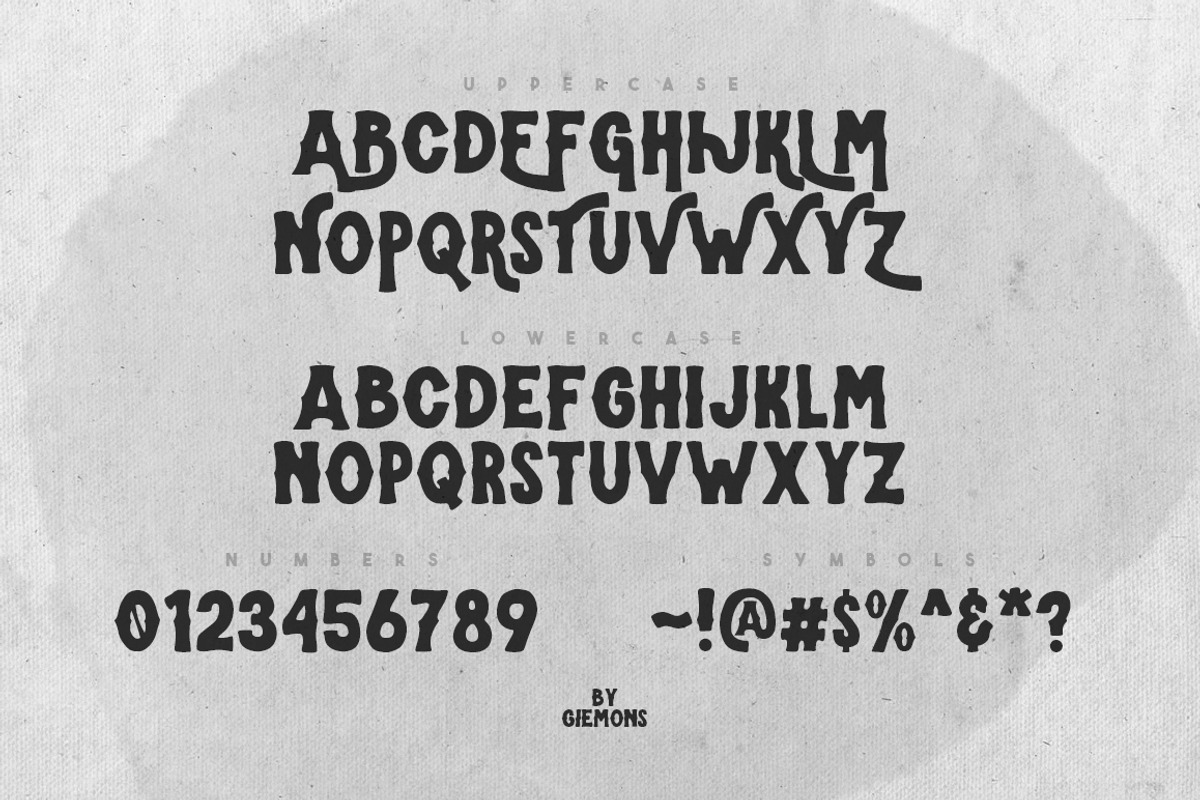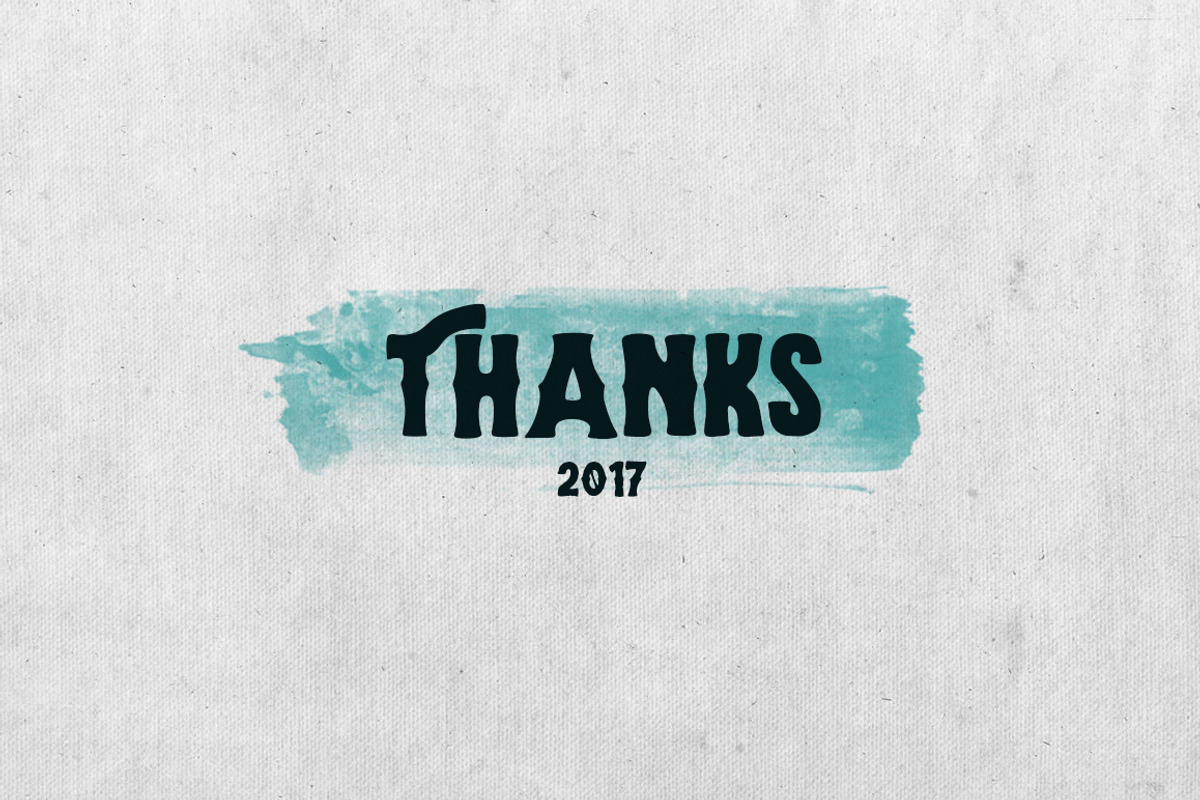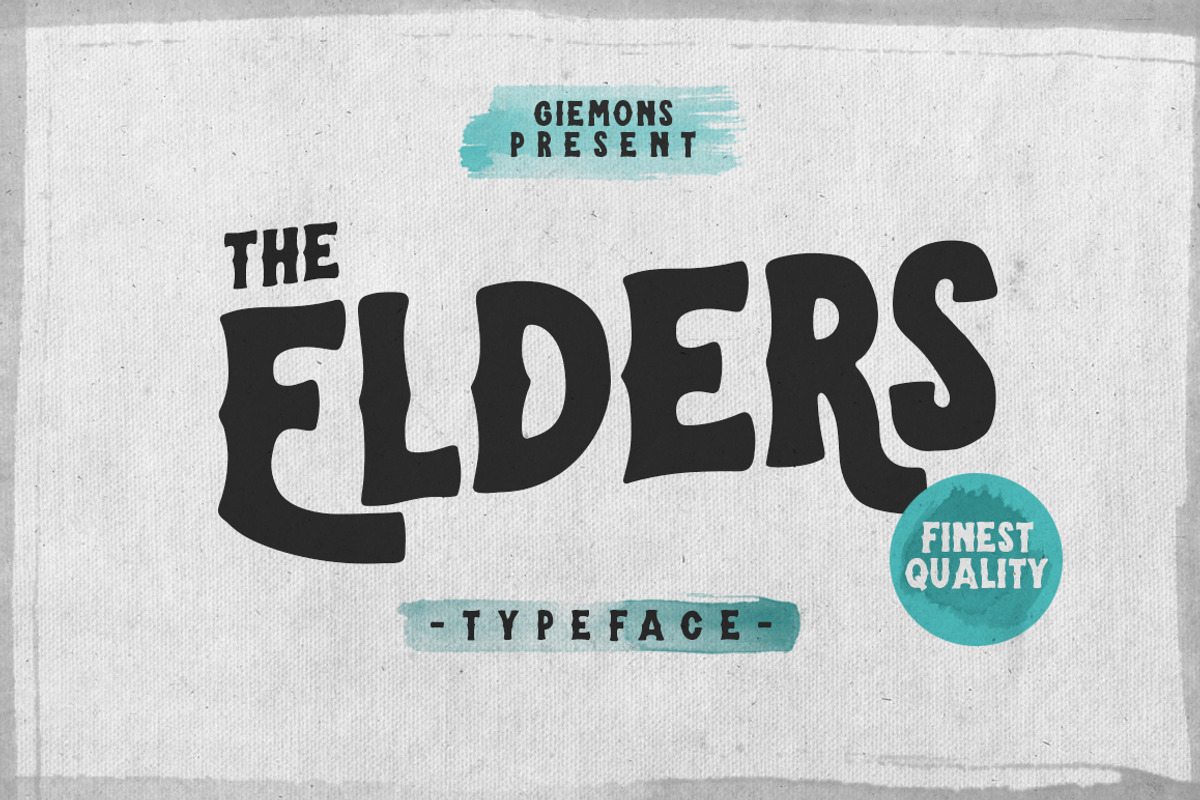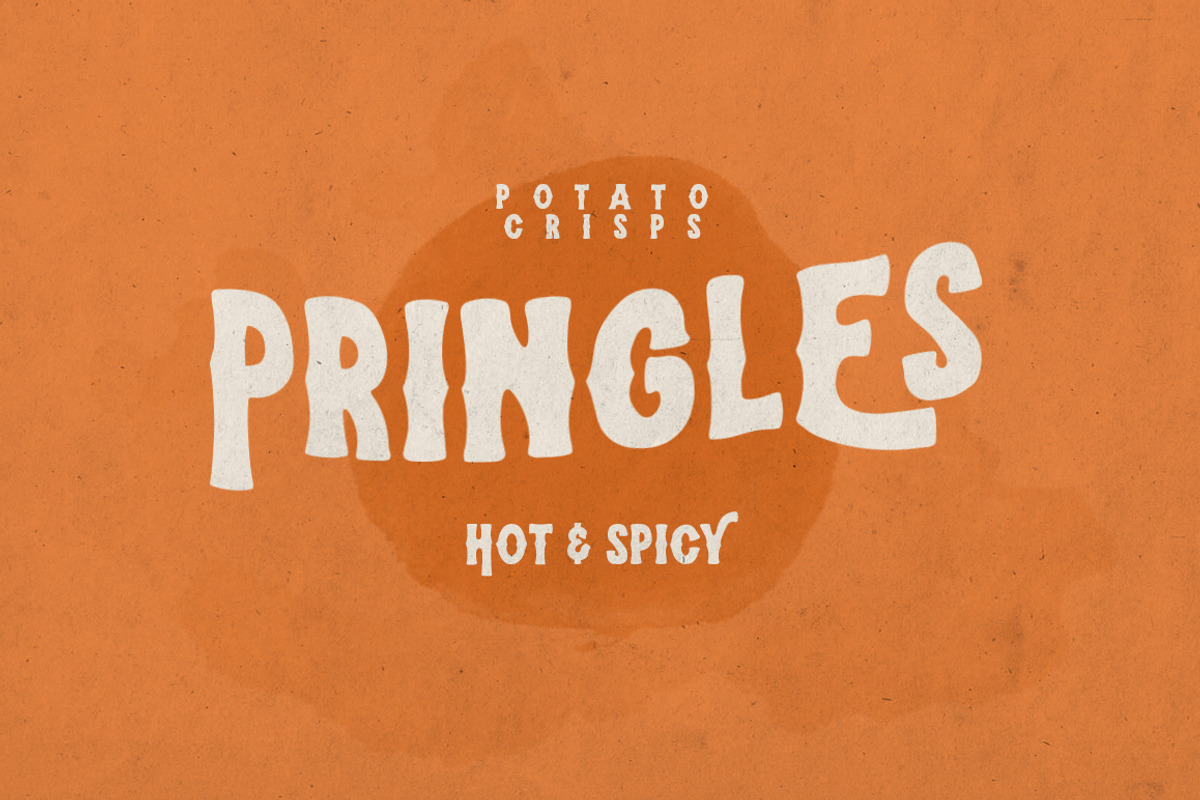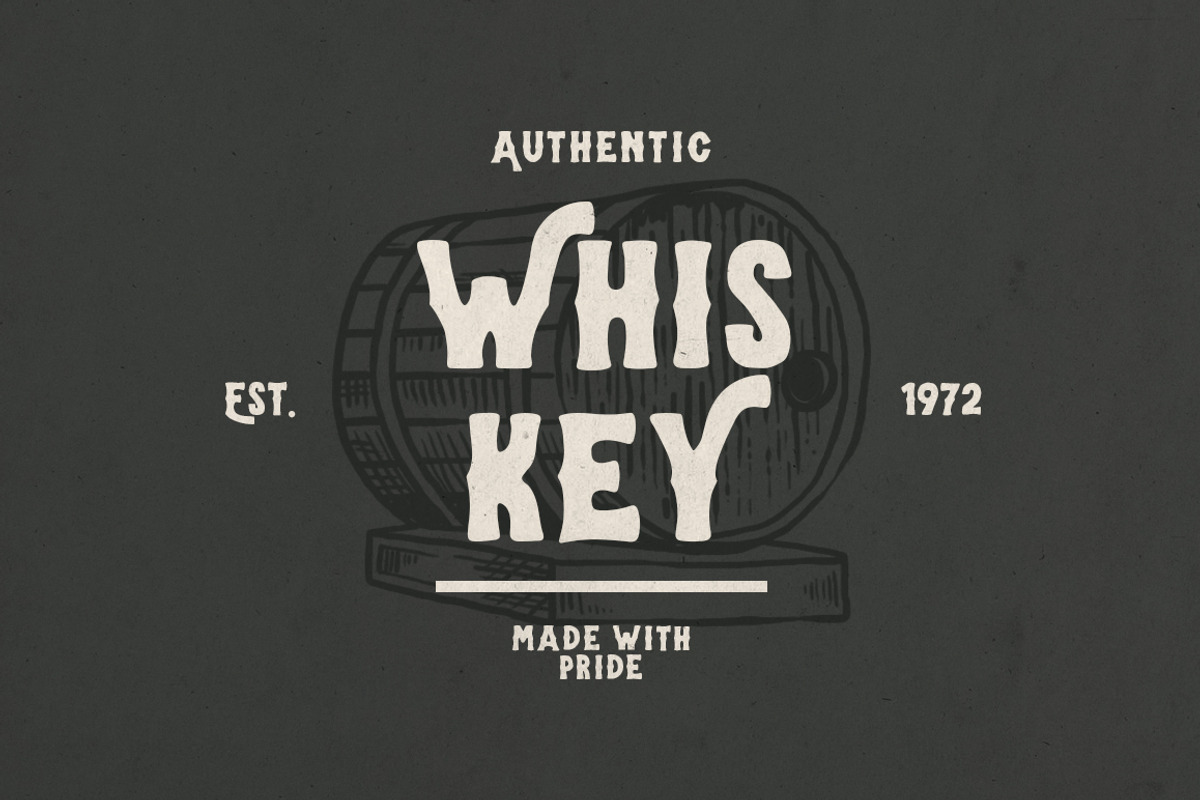
Elders Typeface
a Elders Typeface is unique font and also has vintage display font. Can make it easier to convey the message in your design. Use for awesome display, labeling, clothing, movie sceen, poster, movie title, gigs, album covers, logos, and much more.
- Uppercases & Lowercases